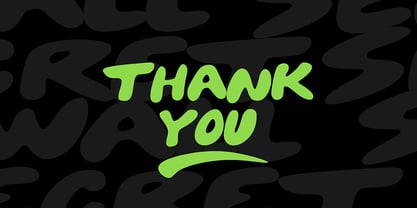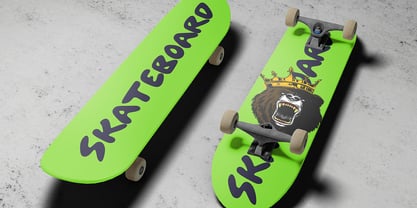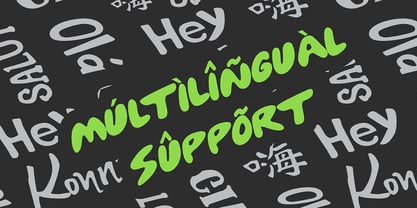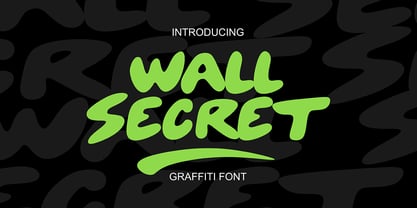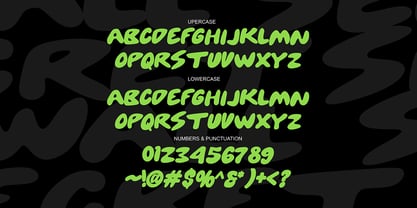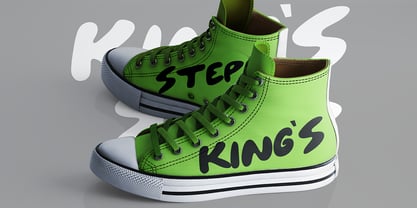
Wall Secret
The Wall Secret Font Family was designed by Sipanji and published by Sipanji21. Wall Secret contains 1 styles. More about this family
Wall Secret is a bold display graffiti font that blends smooth, rounded shapes with the confident energy of street art. Designed to stand out in both print and digital formats, it’s an ideal choice for streetwear branding, music covers, event posters, packaging design, and any project seeking a mix of urban style and modern appeal. The clean yet expressive curves make it highly versatile while maintaining a strong visual impact.
From edgy apparel graphics to vibrant marketing campaigns, Wall Secret delivers a street-smart look that demands attention. Its youthful, dynamic style ensures your message is not only seen but remembered, making it a go-to typeface for creatives who embrace the spirit of street culture.